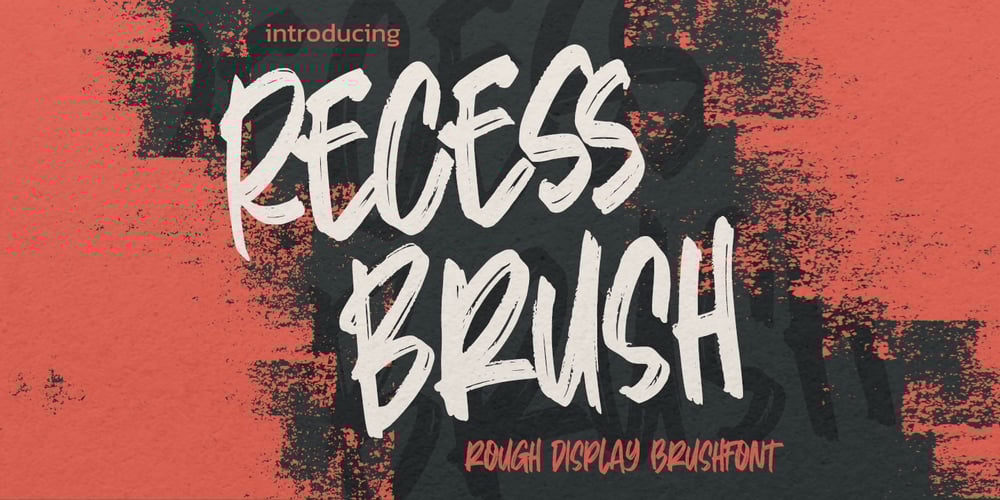
Recess Brush Font Family was designed by Abdul Malik Wisnu, Anang Fibriyanto and published by Gassstype. Recess Brush contains 1 styles and family package options. Hello Everyone, Introduce our new collection, Recess Brush is Rough Display Brush Font and Ligature Brush Font.Recess Brush Font is a Strong Style and classy style, inspired by famous logos of Technology and brands that have very strong characteristics, this font is great for your creative projects such as watermark on photography, and perfect for logos & branding, invitation,advertisements,product designs, stationery, wedding designs,label ,product packaging, special events or anything that need handwritting taste.That is why Recess Brush has charming, authentic and relaxed characteristic ,strong ,cool more natural look to your text with a more natural look to your text. You can activate Ligature OpenType panel.